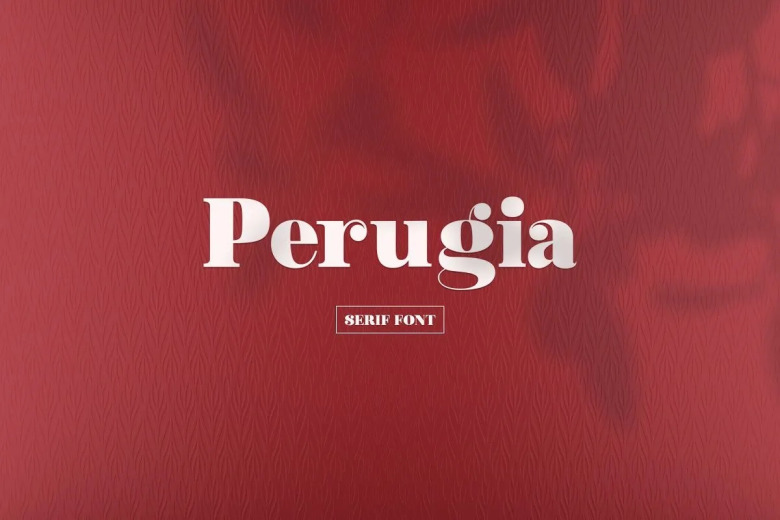
Perugia Font
Perugia is an elegant serif font with a modern vibe and incredibly clean appearance. The uniformed and neat arrangement of letters makes this font very appealing in both formal and non-formal designs. Recommended usage; editorial design, logos, branding, posters, magazines, social media, quotes, procreate designs, etc!
Perugia Serif Font